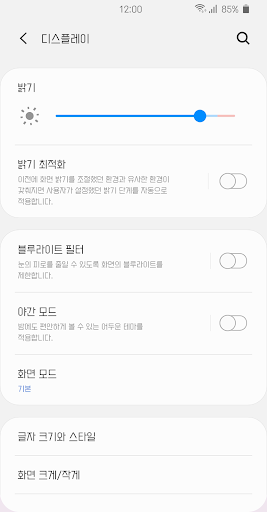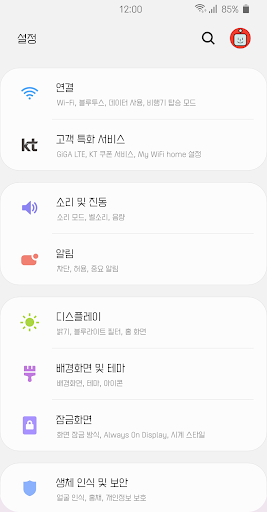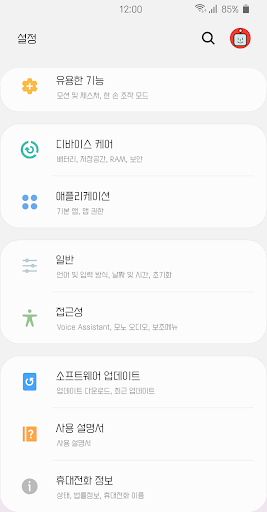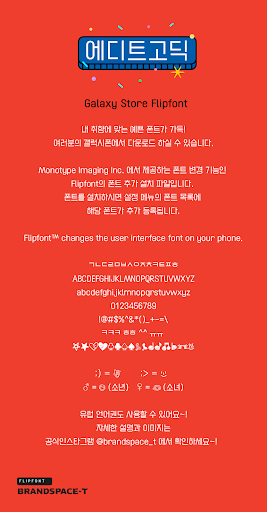
BSTEditSans
This typeface is designed to be simple and flat in geometric form, so it's trendy, as well as refined and neat. The angle and shape of the studied fine rolling are easy to see on the screen, so it is highly visible. It's BSTEditSans, the "soon, my, my own brand", which is well edited and has clear standards.
+ ;) "You're first." Dingbet!
+ ;> A pretty smile that is the point dingbet of the Brandspace-T!
+♂ (boy) ♀ (girl) There is!